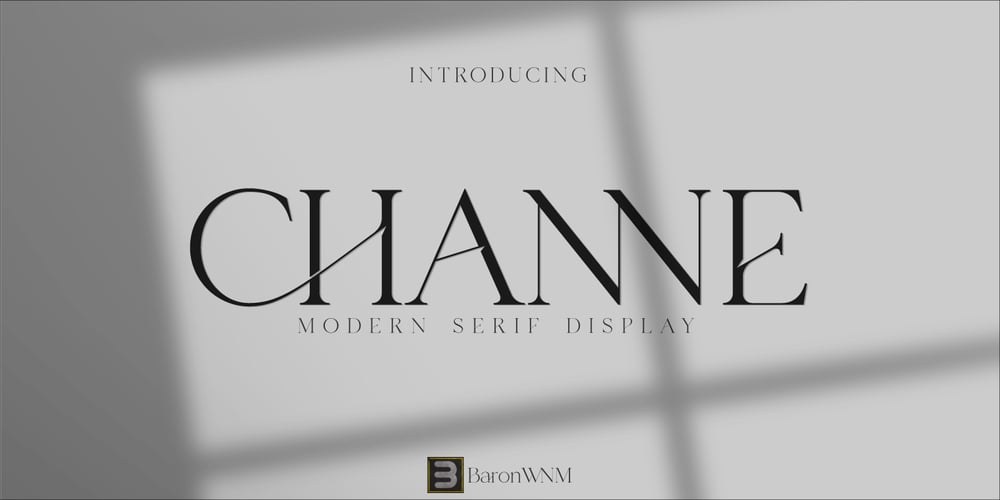
Channe Font Family was designed by Rahmad Mulyadi and published by BaronWNM. Channe contains 1 styles and family package options. Channe is a display serif font. a blend of straight and curved shapes that look contrasting and elegant. Channe has a unique shape on the capital letters “A, B, F, H, P, Q, and several other letters. It also has several ligatures with a unique blend. Channe font is very suitable for use on labels of cosmetics, fashion, jewelry products, and several other products. Also suitable for posters, magazine covers, book covers, business cards, invitations, and several other things that demand a formal and elegant impression.